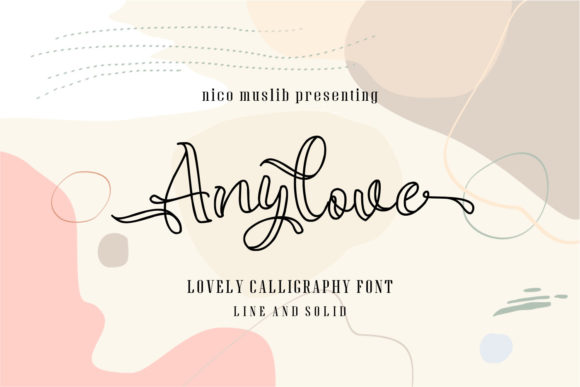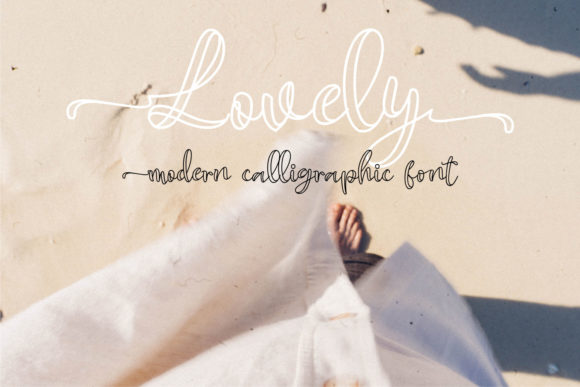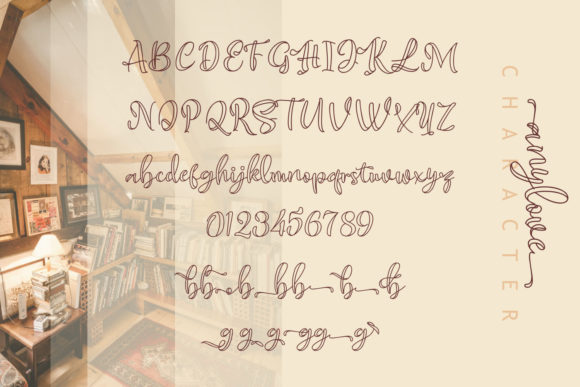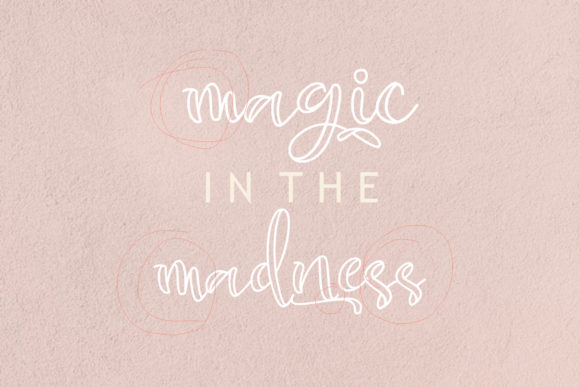
Anylove Font
About Anylove Font
Anylove simplifies elegance into one truly outstanding handwritten font. It maintains its classy calligraphic influences while feeling contemporary and fresh. This font is the perfect fit for all of your logos, branding, social media, and crafty DIY projects.